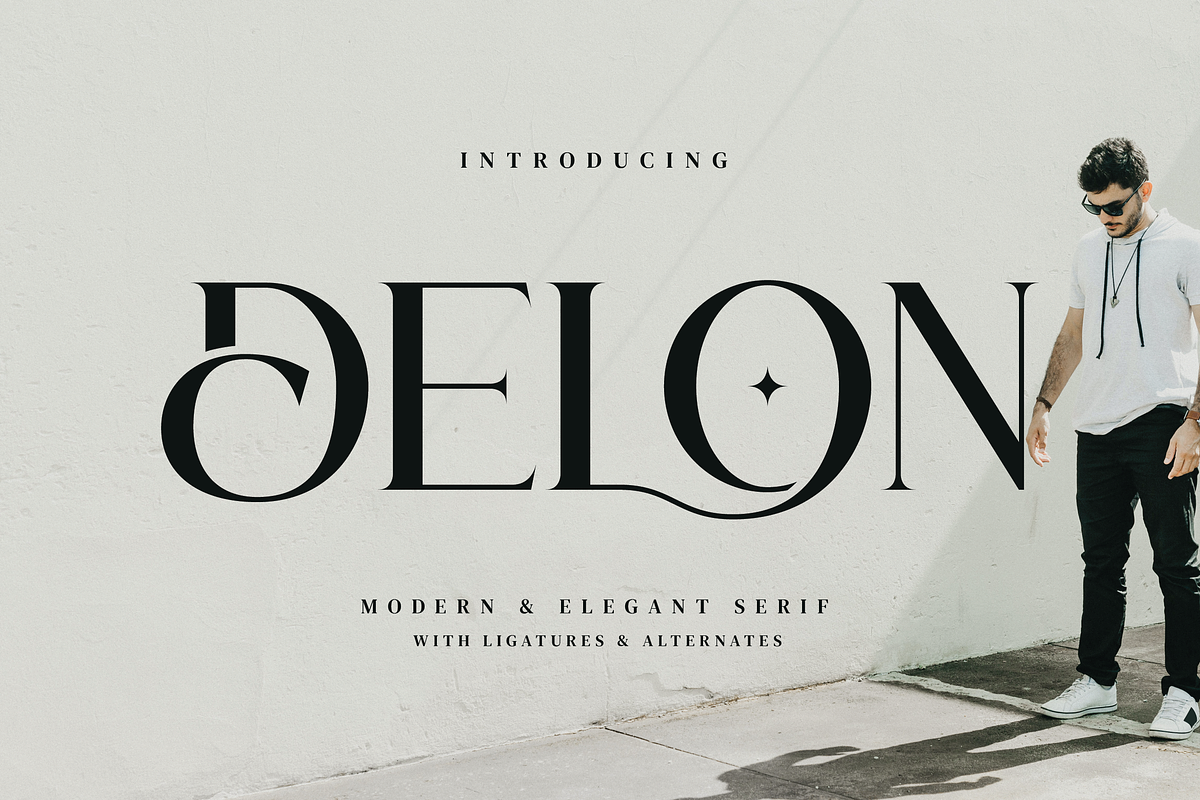
Delon - Stylish Serif Font Free Download
Delon – Stylish Serif Font Free Download is a modern, fashion-forward typeface that blends elegance with bold sophistication. Please note: you must purchase this font for commercial use, but you can test it through a free download. With its high-contrast strokes, refined curves, and contemporary details, Delon is perfect for luxury branding, editorial layouts, logo design, product packaging, and upscale invitations.
This font offers timeless style with a modern twist—ideal for designers who want to communicate confidence, beauty, and professionalism. Whether you're crafting a minimalist brand identity or a stylish magazine spread, Delon – Stylish Serif Font Free Download delivers striking typography that commands attention. Fully compatible with Adobe Illustrator, Photoshop, Canva, and other design platforms. Download it today for personal use and let your creativity shine with the graceful sophistication of Delon.